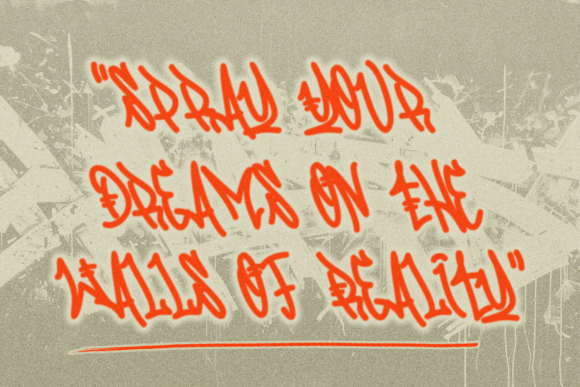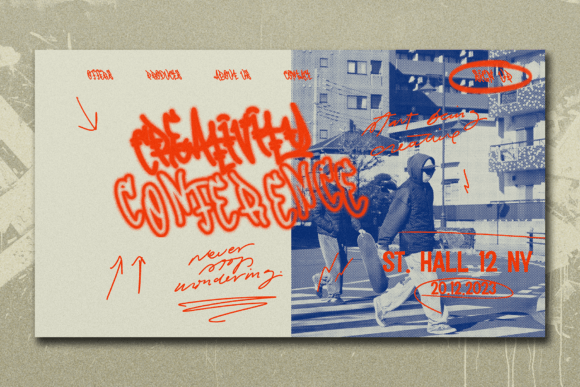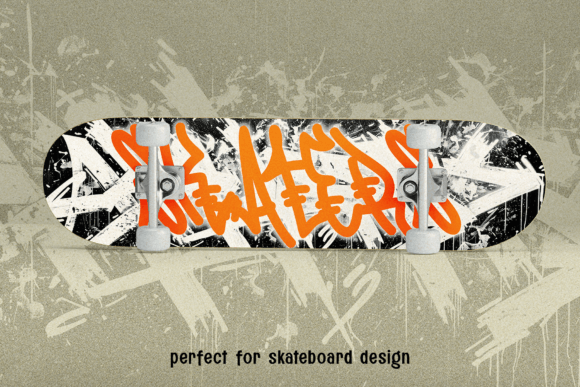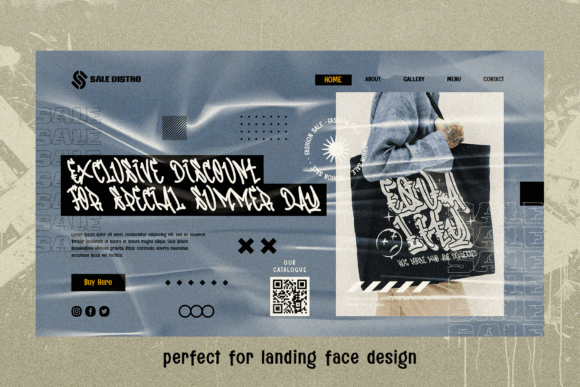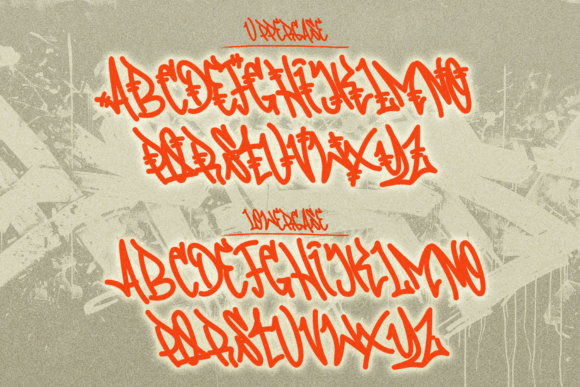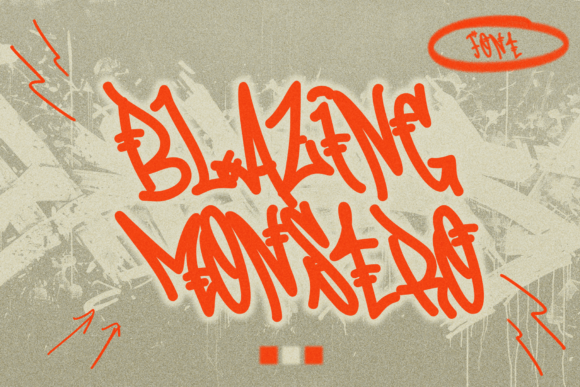
Unleash the Raw Power of Street Art with Blazing Monstro Font
Are you tired of using the same old fonts in your designs? Do you want to add an urban edge to your creations and make them stand out from the crowd? Look no further than Blazing Monstro, a genuine monoline graffiti font that’s handcrafted to perfection. This stunning font is designed to bring the raw power and energy of street art to your designs, and in this article, we’ll explore what makes it so special.
The Essence of Graffiti Art
Graffiti art is all about self-expression and rebellion. It’s about taking a blank canvas and turning it into a work of art that’s raw, emotional, and unapologetic. The fluid, organic strokes of graffiti art are what give it its unique character, and Blazing Monstro font captures that essence perfectly. With its naturally rustic, city-centric persona, this font is the perfect tool for designers who want to add an urban edge to their creations.
What Makes Blazing Monstro Special?
So, what sets Blazing Monstro apart from other fonts? Here are just a few things that make it special:
- Handcrafted to perfection: Blazing Monstro is a genuine monoline graffiti font that’s been handcrafted with love and care. Every letter and stroke has been carefully crafted to ensure that it looks like it was written on the side of a building with a can of spray paint.
- Fluid, organic strokes: The strokes in Blazing Monstro are fluid and organic, just like graffiti art. This gives the font a natural, effortless look that’s perfect for designs that need an urban edge.
- Rustic, city-centric persona: Blazing Monstro has a naturally rustic, city-centric persona that’s perfect for designs that need to evoke the feeling of the city streets.
How to Use Blazing Monstro in Your Designs
Blazing Monstro is a versatile font that can be used in a wide range of designs, from apparel and album covers to posters and digital media projects. Here are just a few ideas to get you started:
- Apparel designs: Use Blazing Monstro to create bold, eye-catching designs for t-shirts, hoodies, and other apparel.
- Album covers: Add an urban edge to your music designs with Blazing Monstro. It’s perfect for hip-hop and rock album covers.
- Posters: Use Blazing Monstro to create bold, attention-grabbing posters for concerts, festivals, and other events.
- Digital media projects: Add a touch of street art to your digital media projects, such as videos, social media graphics, and website headers.
Tips for Getting the Most Out of Blazing Monstro
Here are a few tips for getting the most out of Blazing Monstro:
- Use it bold and big: Blazing Monstro is a font that’s meant to be seen, so don’t be afraid to use it bold and big.
- Experiment with colors: Graffiti art is all about color, so experiment with different colors to find the one that works best for your design.
- Combine it with other fonts: Blazing Monstro can be combined with other fonts to create a unique and interesting look.
| Font Name | Blazing Monstro Font |
| Author | sipanji figuree |
Blazing Monstro is a powerful and versatile font that’s perfect for designers who want to add an urban edge to their creations. With its fluid, organic strokes and naturally rustic, city-centric persona, it’s the perfect tool for creating designs that are bold, eye-catching, and unforgettable. So why settle for a boring, generic font when you can unleash the raw power of street art with Blazing Monstro? Try it out today and see the difference it can make in your designs!